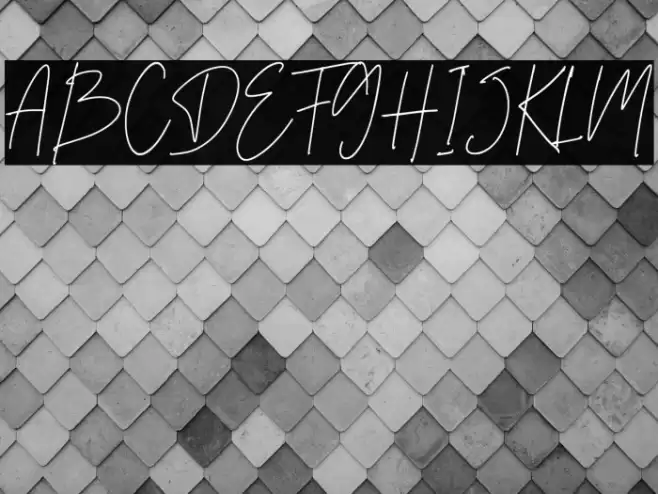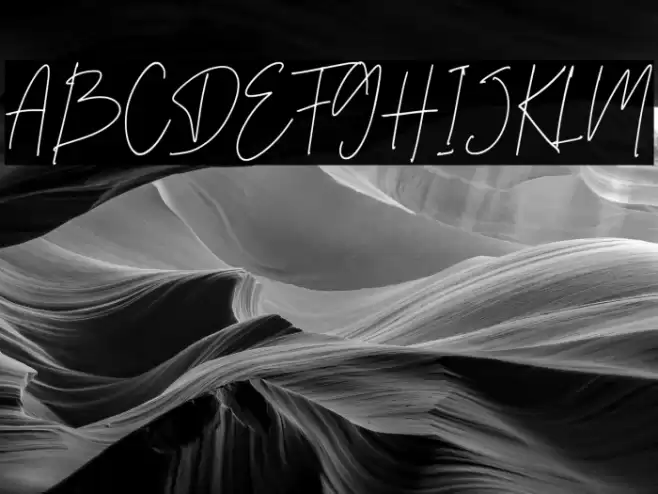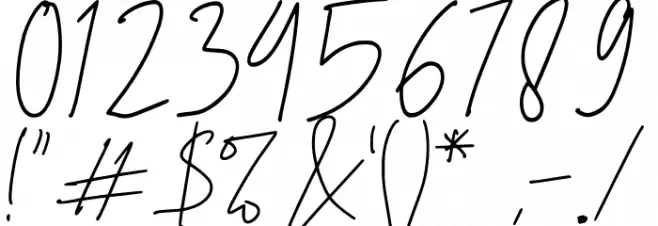
Daltana Demo Font
Daltana Demo Description
This font features a lively and dynamic handwritten style, characterized by its fluid and continuous strokes. The letters are slightly slanted, giving a sense of motion and energy. Uppercase and lowercase letters are distinct yet harmoniously blend together, maintaining a consistent flow throughout. The numerals and special characters follow the same energetic style, ensuring a cohesive look across all text elements. The overall appearance is casual and approachable, making it suitable for projects that require a personal touch.
A dynamic and fluid handwritten font with a lively, casual style from Uncategorized fonts.
- Font: Daltana Demo
- Proposed Projects: Ideal for personal branding, greeting cards, invitations, and social media graphics where a personal and approachable feel is desired.
- Overall Style: Casual
- Use Case: Logos, Invitations, Social media graphics